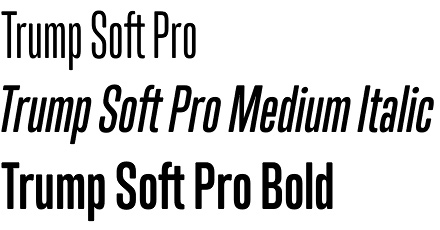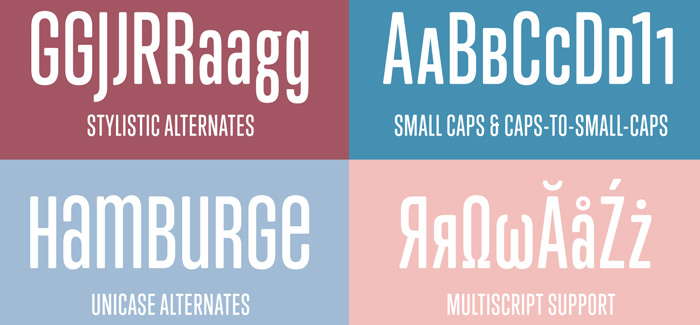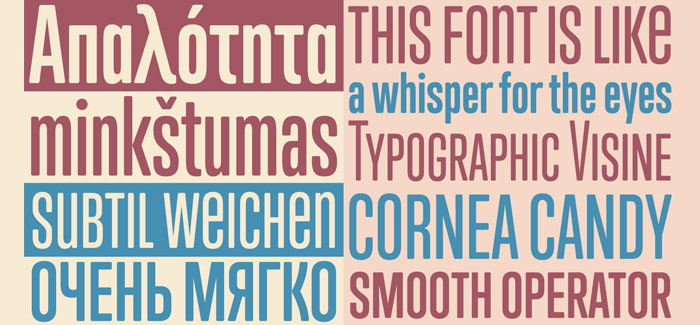
Trump Soft Pro font
Trump Soft Pro font is a refined corner-rounded variation of Trump Gothic Pro font. Trump Soft typeface is characterized by refined and toned down outlines preserving at the same time the Trump font clan’s key feature – compactness which favours placing large packs of information in tight spaces, while keeping beauty and eligibility. Its distinctive completeness, aesthetic, and functionality remain unattainable.
The sharper Trump Gothic font family, designed by Patrick Griffin and published by Canada Type, is a digital reincarnation of the famous George Trump’s 1955 Signum (Western script), embedded itself in Stanislav Maršo’s 1956 Kamene (Eastern script). The Trump Gothic font family originally emerged in some late 1990s and early 2000s movie projects. Since 2005 meeting general public, both Trump Gothic and Trump Soft can be seen often in movie credits, on posters and magazine covers, in fashion branding and on corporate web sites.
Trump Soft font family following its close relative, the Trump Gothic font family, was redesigned, refitted, optimized and significantly expanded in 2013, and the result is a multiscript family of six fonts, each containing over 1020 glyphs and a wealth of OpenType features, including small caps, caps-to-small-caps, stylistic alternates, unicase/monocase alternates, fractions, ordinals, class-based kerning, and support for Latin, Cyrillic and Greek locales.
Designers: Patrick Griffin, Georg Trump, Stanislav Maršo
Publisher: Canada Type